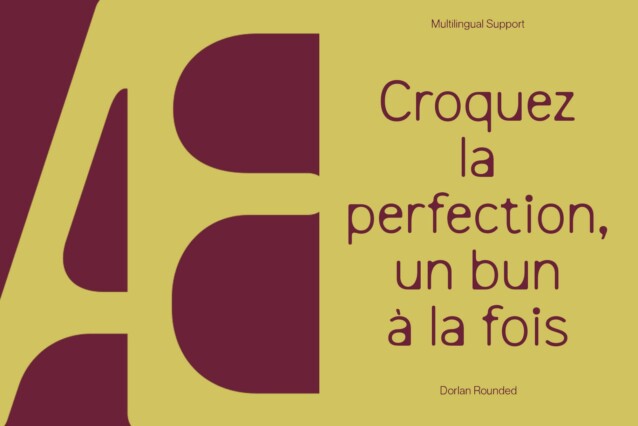
Dorlan Rounded Font
Dorlan Rounded Font is a modern sans serif font that combines clean lines with rounded, geometric shapes. Its minimalist design creates a sleek and contemporary aesthetic that exudes modernity and sophistication. The rounded edges soften the clean, geometric forms, offering a visually appealing balance of simplicity and elegance.